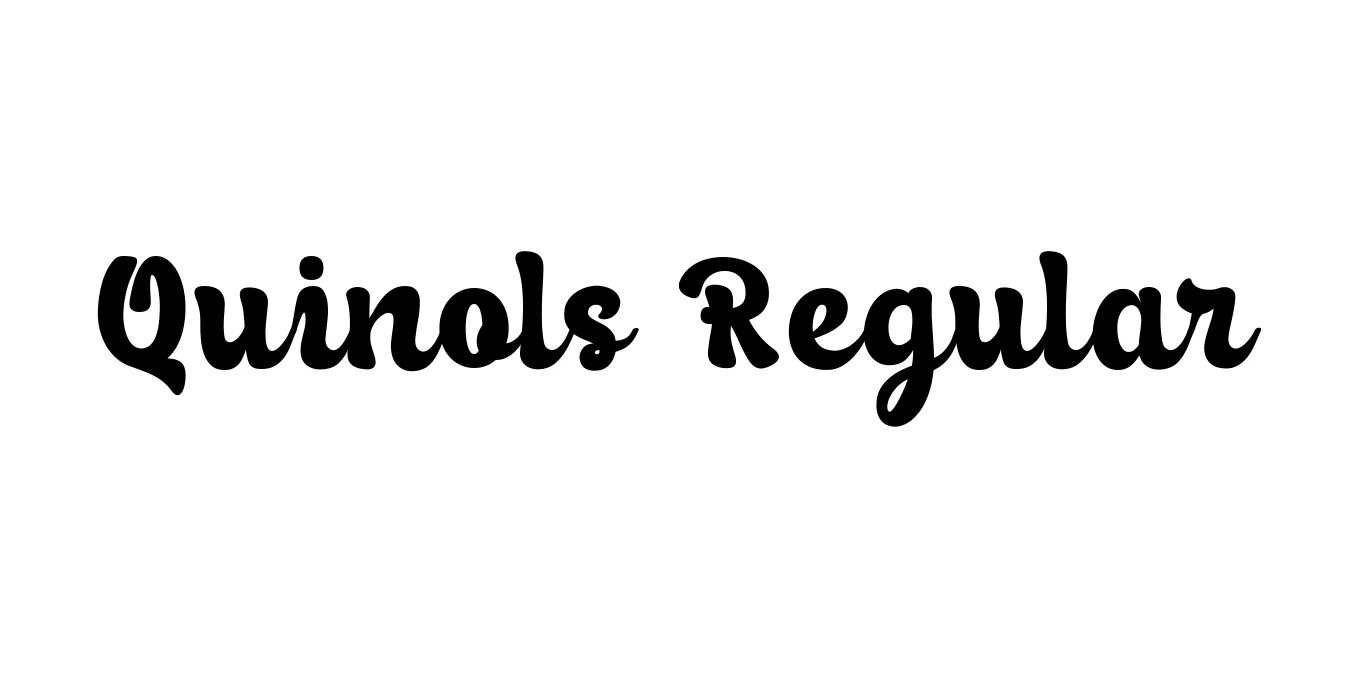
Quinols Regular
Designed by Hendra Mauly (Grayscale Design)
Quinols Regular is a sophisticated handwritten script font crafted by Hendra Mauly of Grayscale Design. It features fluid, rhythmic strokes and an elegant, casual aesthetic that beautifully mimics natural handwriting. The font is designed with a specific focus on signature-style character, making it an ideal choice for projects that require a personal, artisanal touch or an upscale, modern vibe.
This typeface is highly versatile, performing exceptionally well in both high-resolution print and digital media. Its authentic appearance is characterized by a dynamic balance of weight, providing a sense of motion and grace. Whether utilized for high-end luxury branding or minimalist social media graphics, Quinols offers a distinct personality that differentiates it from standard geometric fonts, ensuring a unique and memorable visual identity.
Quinols Regular Best Uses
Creating professional logos and luxury identity systems.
Perfect for wedding invitations, greeting cards, and personal correspondence.
Designing eye-catching quotes and Instagram story overlays.
Applying to high-end product labels, boxes, and boutique tags.